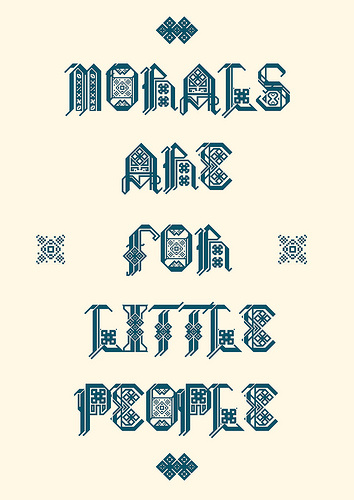
• This font was based on the word pompous. It was created for a typography brief set in my first year at UWE Bristol. From the word pompous I was inspired to look at black letter fonts and ornate styles of decoration. Any feedback would be appreciated! If you use this font within your work please post a link with your final outcome, as its always nice to see your creation in action! Heres a link to my specemin poster http://www.flickr.com/photos/55197427@N03/5163466861/lightbox/ x
wow. this is magnificent and quite an accomplishment. nicely done and well done. not overly done, just right. congratulations and wish you well in your studies.
Medieval and heraldic with a contemporary feel. I particularly like the letter K.
Specimen poster looks fantastic man, great interpretation of the theme. You might wanna change the license so people can't clone it, there are people out there who'll want to pass this off as their own work
This is very very good and looks really well thought out
looks so good man. Hope the poster/booklet is going good too.
Good and hard work! And good sample too by master fk!
so where are the dingbats? are you creating another set :)
Very interestingly decorated.
I've added a few glyphs to the font, should be adding some more pretty soon!
A very elegant and detailed fontstruction, and an excellent interpretation of the word pompous.
It's the modern medieval face. :)
Sweet! Keep going.
80 whoa. 869586596048579470356704387/10 as usual.
Out of all the fonts from last year, this one remains my favourte, it's so sharp, detailed and delightfully simple in some ways. :3